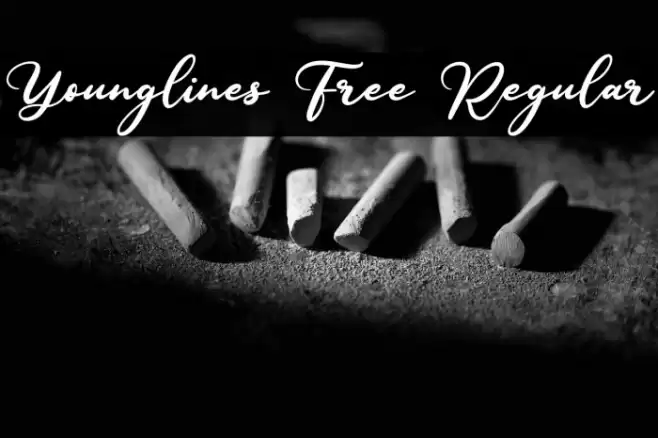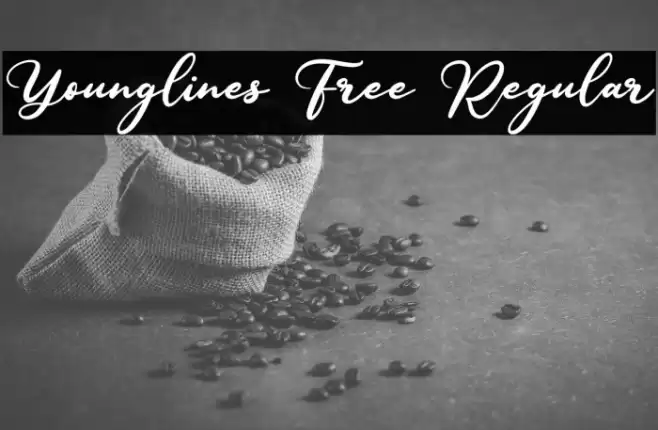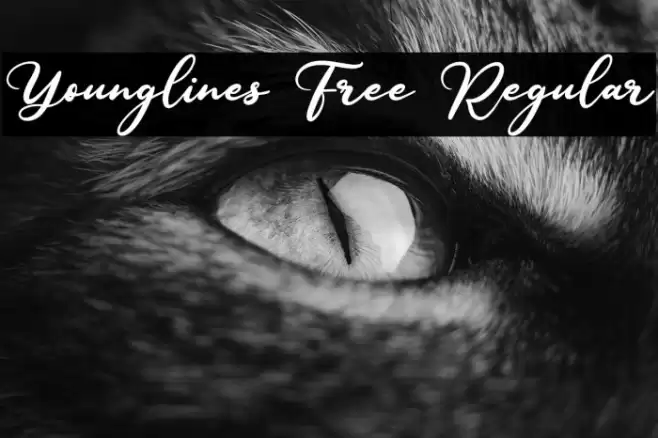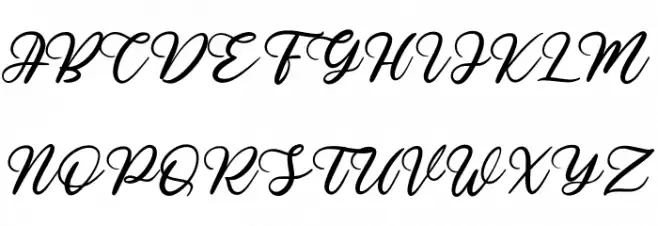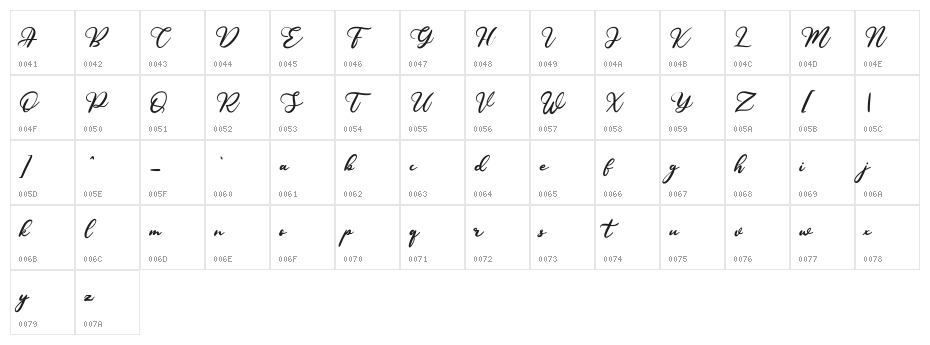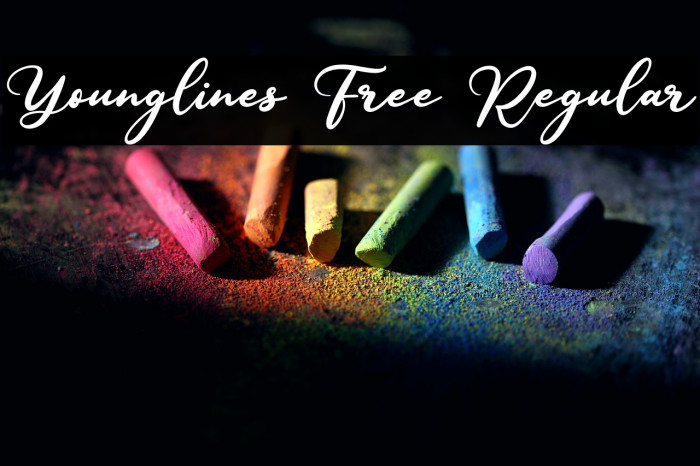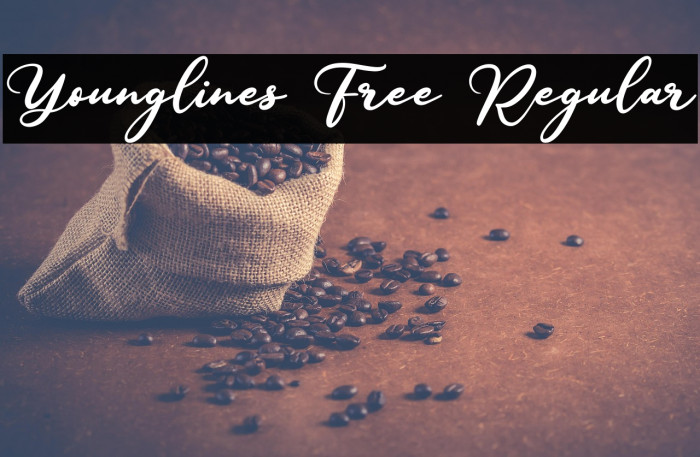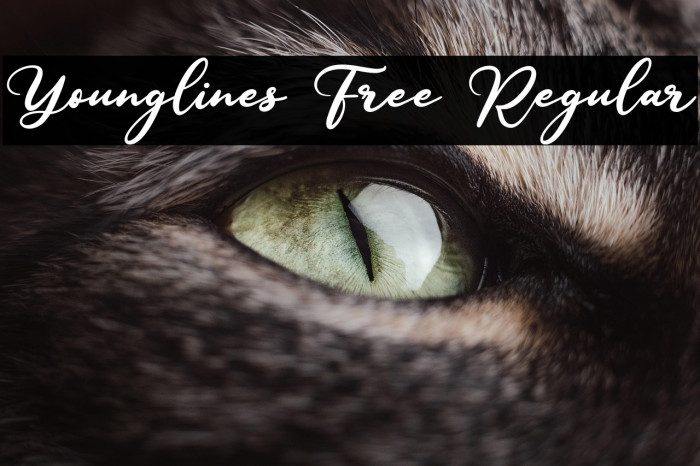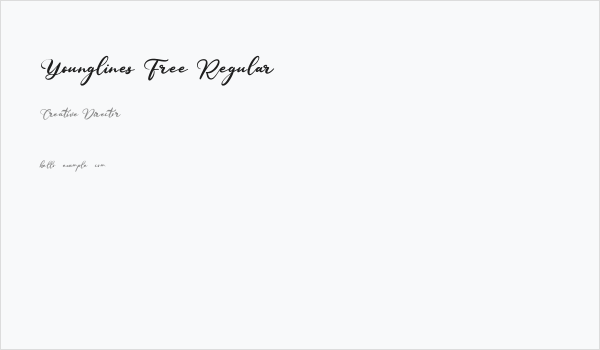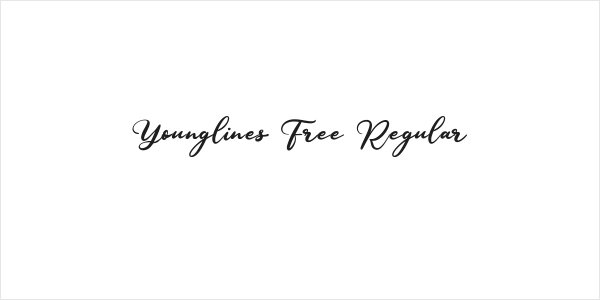
Younglines Free Regular Font
Younglines Free Regular Description
This font features a flowing, cursive style that exudes elegance and sophistication. The letters are interconnected, creating a seamless and fluid appearance. The uppercase characters are slightly more ornate, with graceful loops and swirls, while the lowercase letters maintain a consistent, smooth flow. The overall design is reminiscent of traditional calligraphy, making it suitable for formal and decorative applications. The font's strokes are moderately thick, providing a balanced contrast that enhances readability while maintaining its artistic flair.
A flowing, cursive font with elegant, interconnected letters and moderate stroke contrast from Regular fonts.
- Overall Style: Classic